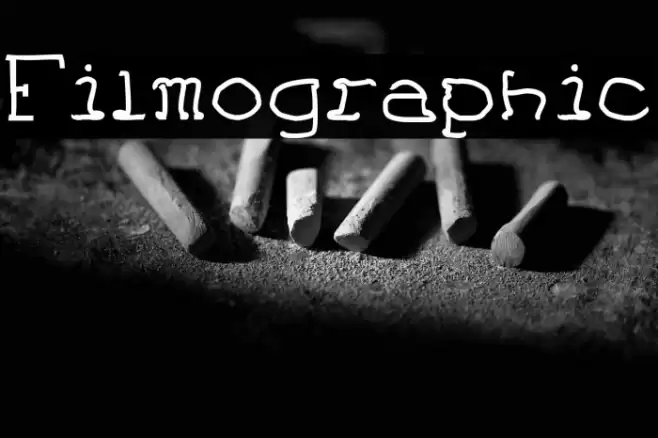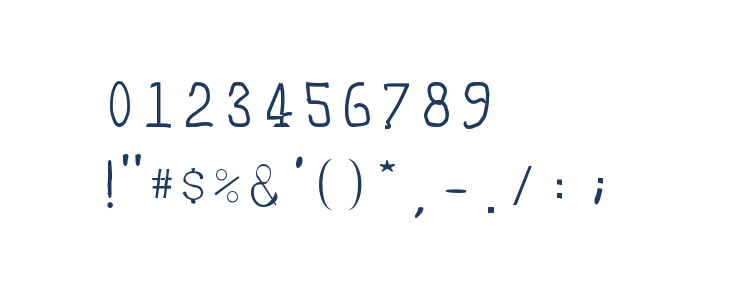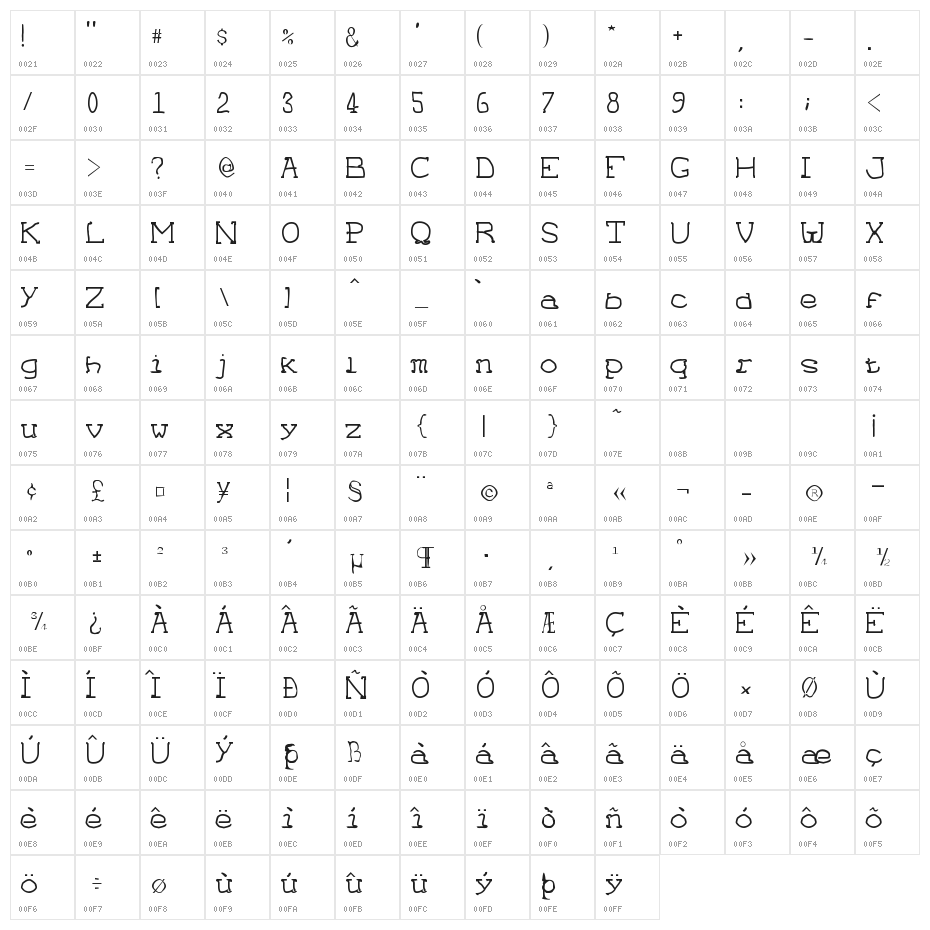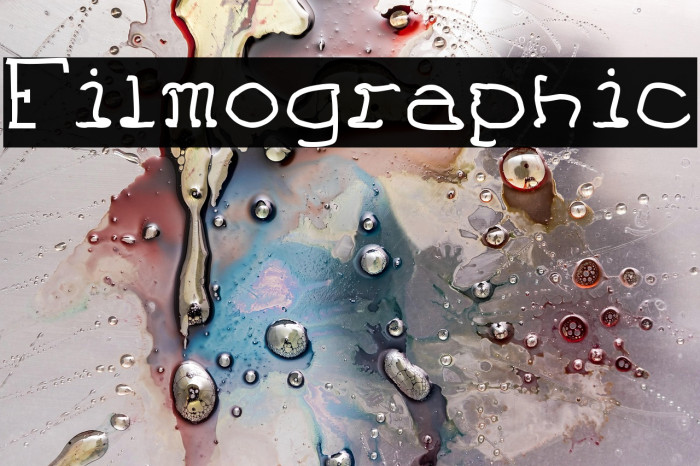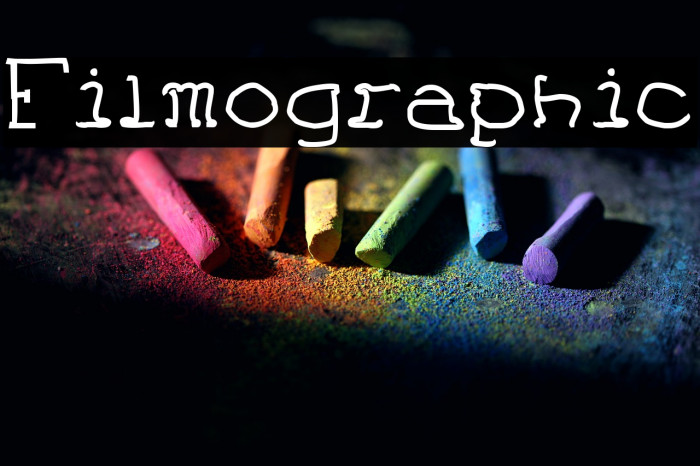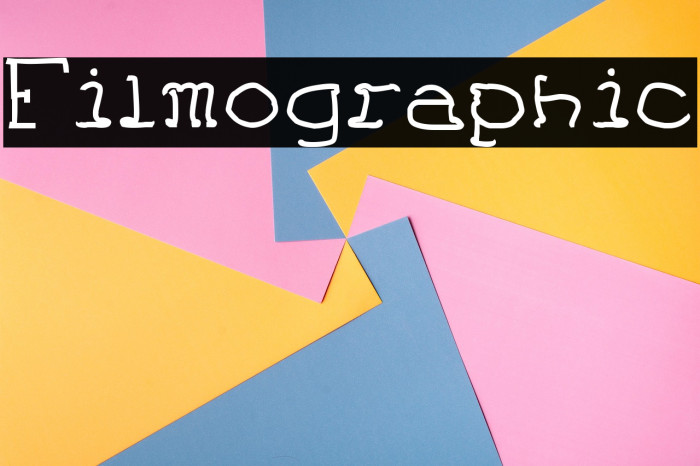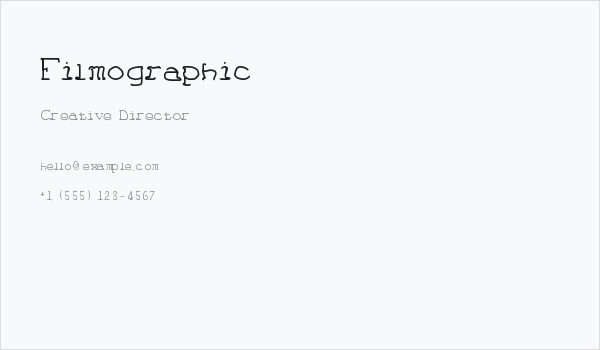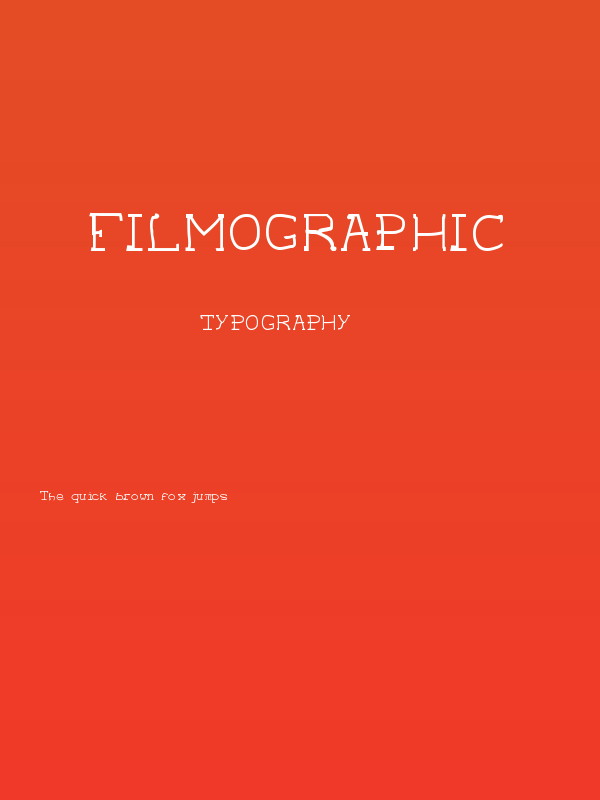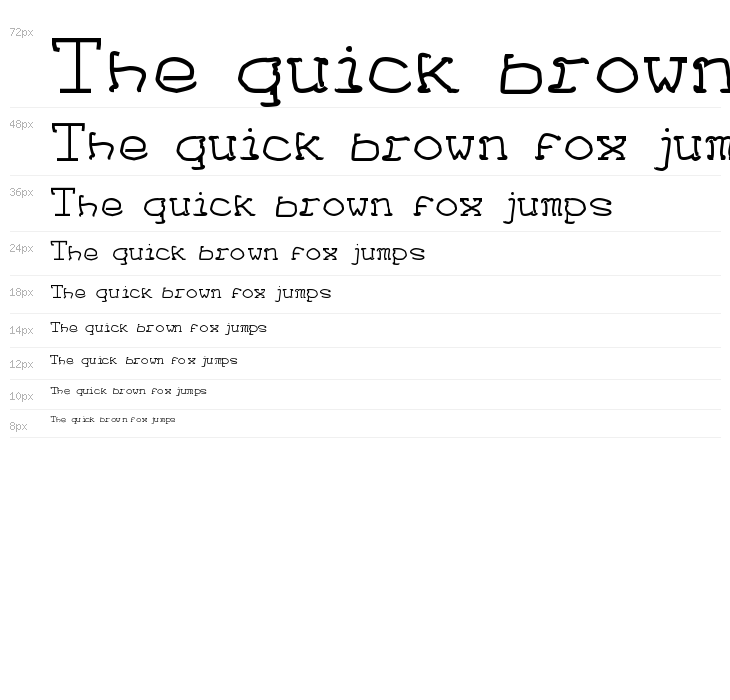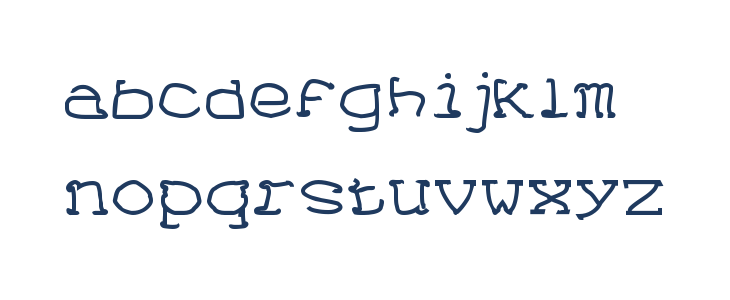
Filmographic Font
Filmographic Description
This font features a playful and quirky design, characterized by its uneven strokes and slightly irregular shapes. The letters have a hand-drawn appearance, adding a whimsical and informal touch to any text. The uppercase and lowercase letters maintain a consistent style, with unique flourishes that give each character a distinct personality. The numbers and special characters follow the same playful aesthetic, making the font versatile for various creative projects. Its overall look is reminiscent of a casual handwritten note, perfect for adding a personal and approachable feel.
A playful, hand-drawn font with quirky, uneven strokes from Sans Serif fonts.